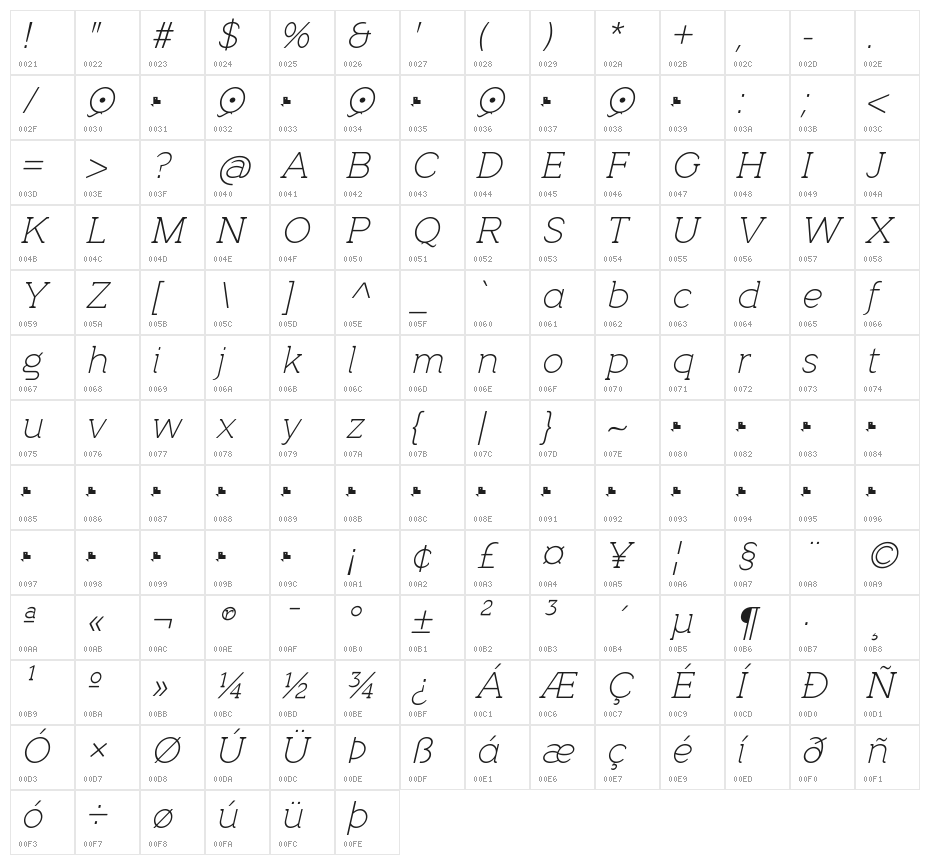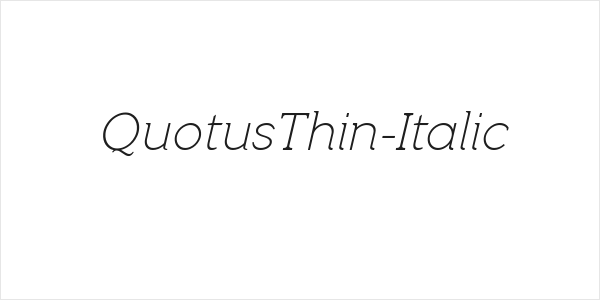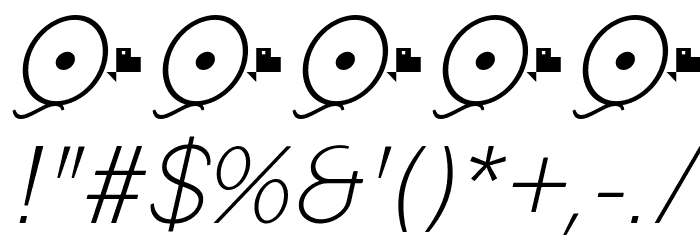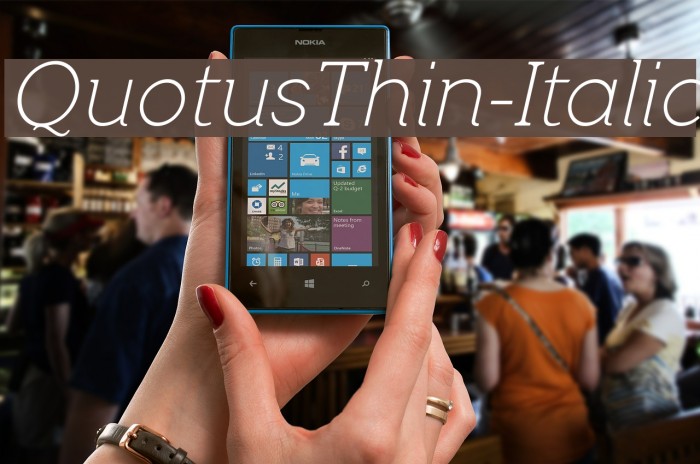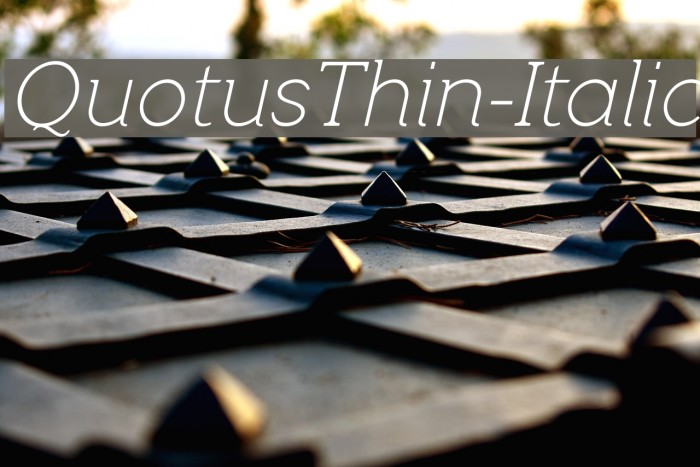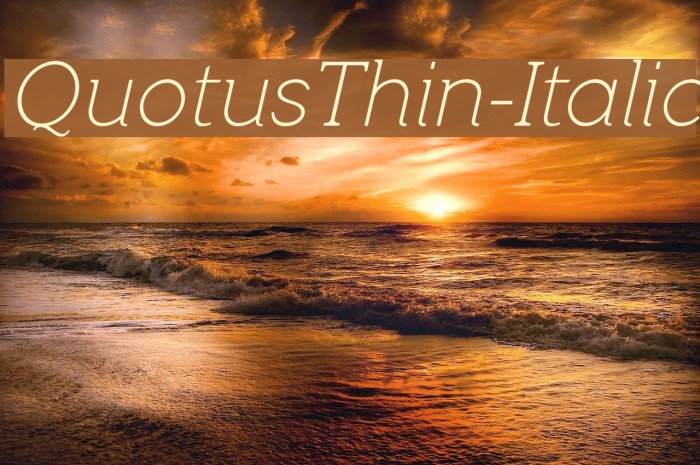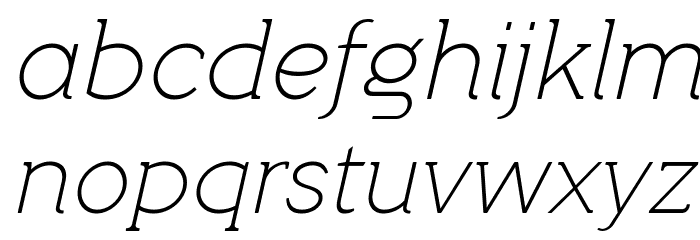
QuotusThin-Italic Font
QuotusThin-Italic Description
This font exhibits a sleek and elegant design with a thin, italicized style. The characters are gracefully slanted, providing a sense of movement and sophistication. The strokes are consistently thin, contributing to a light and airy appearance. The uppercase letters maintain a consistent height, while the lowercase letters have a gentle curve, enhancing readability. The numerals are well-proportioned, and the special characters are distinct, adding versatility to the font. Overall, this typeface exudes a modern and refined aesthetic, suitable for various design applications.
| Use Case | Headlines, Body text, Logos |
| Proposed Projects | Ideal for fashion magazines, luxury branding, elegant invitations, and modern web design. |